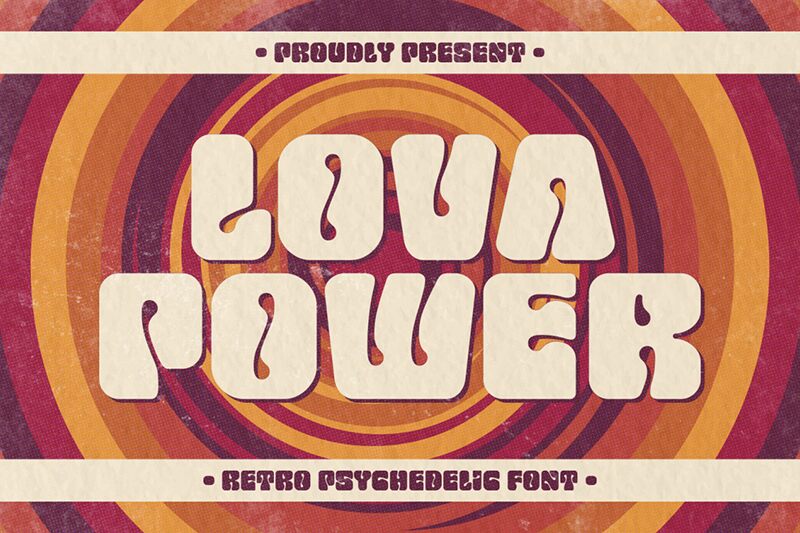
Lova Power font by HansCo is a groovy display typeface with a bold presence and playful aesthetic. Characterized by its retro-inspired architectural style, Lova Power has clean elements that reference the iconic typography of the 1960s and 70s.